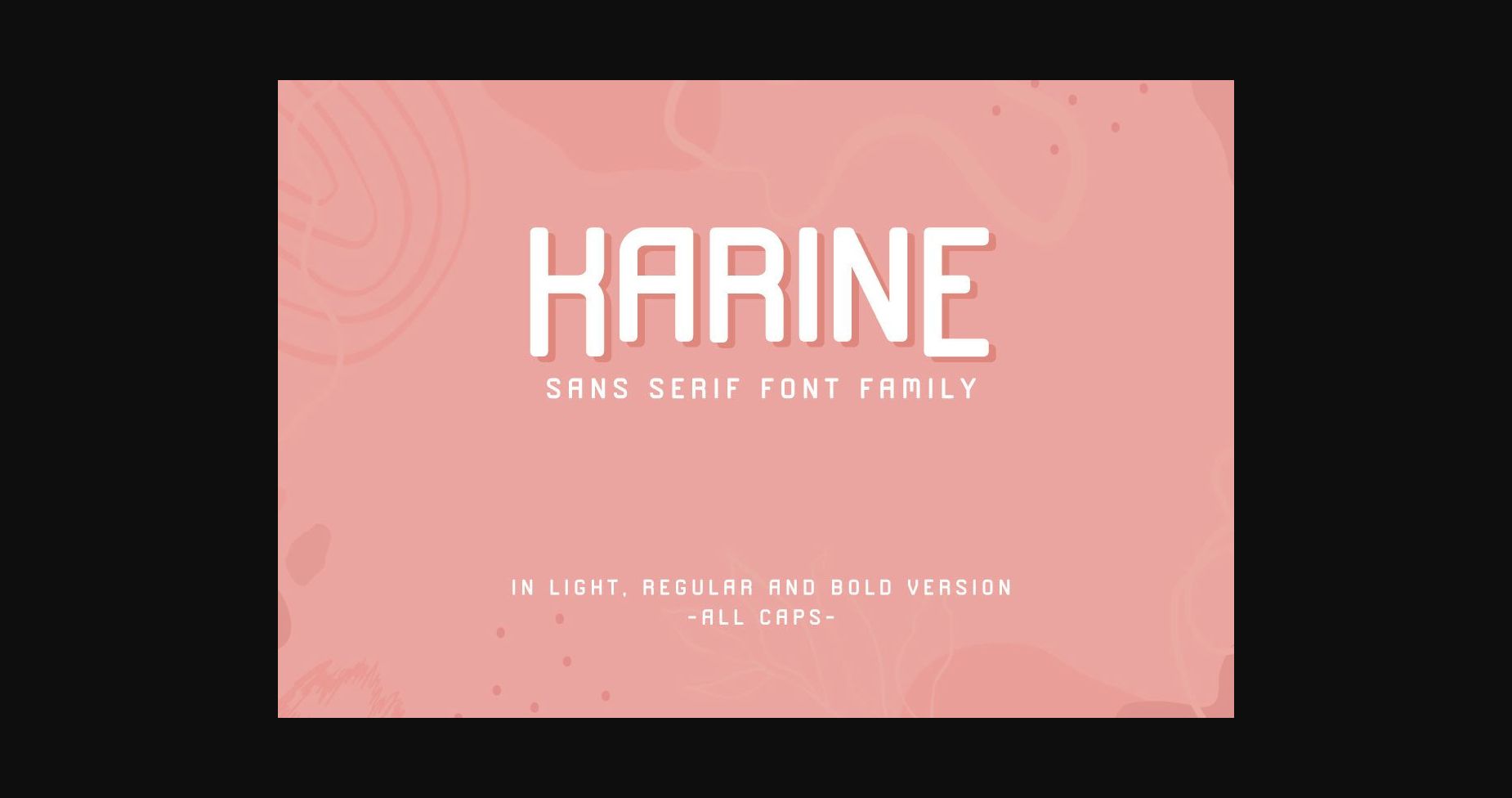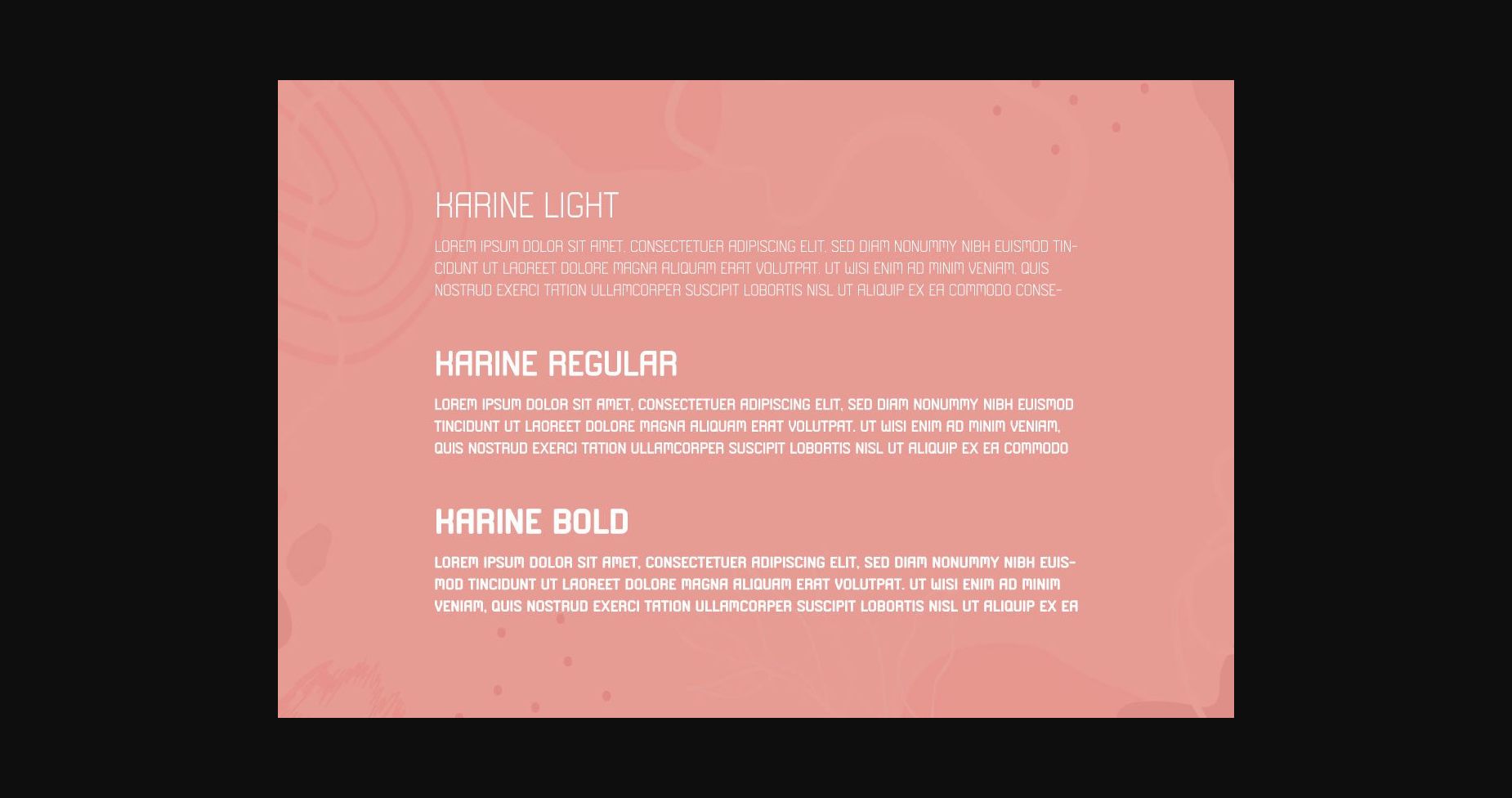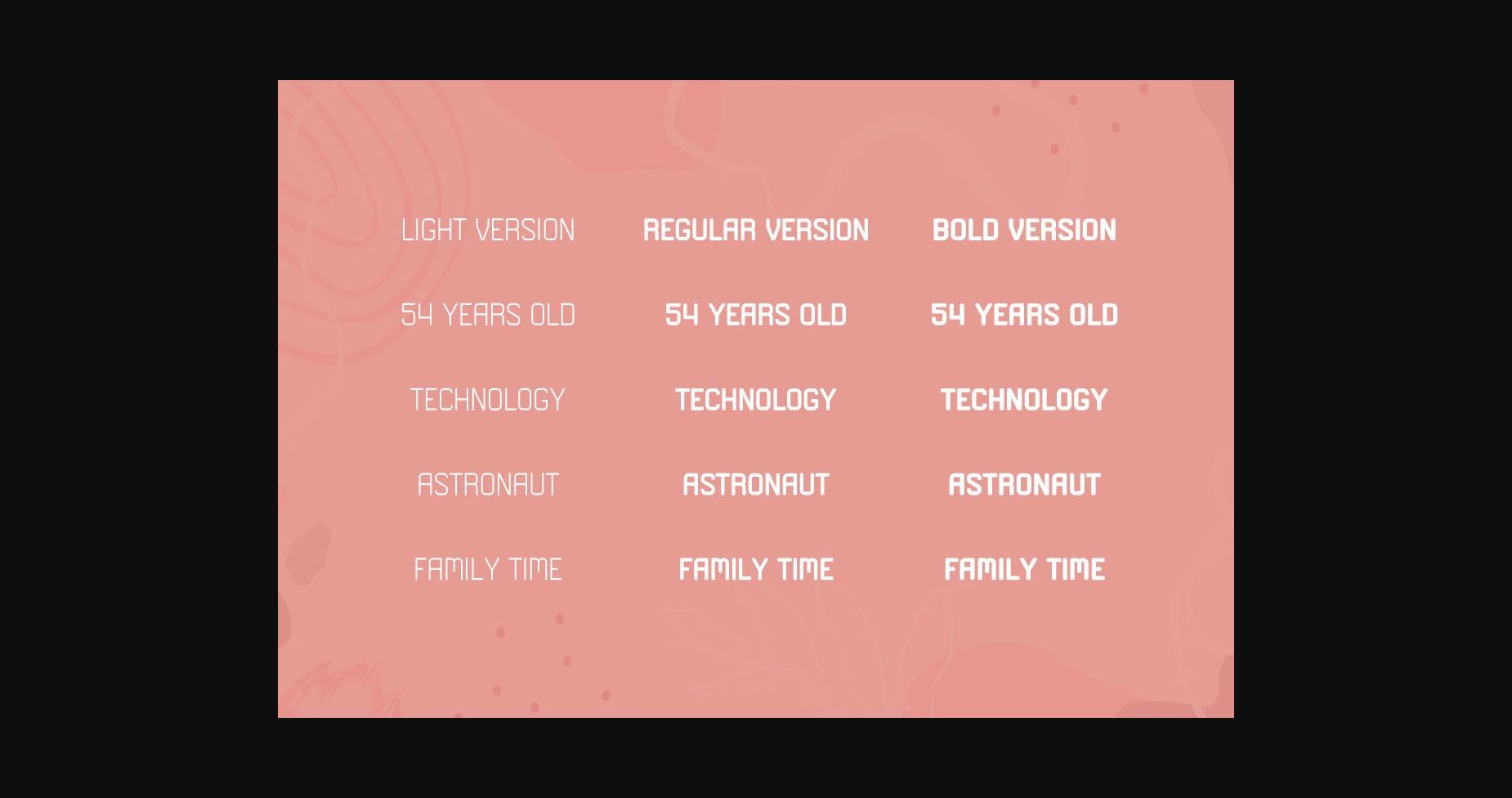
Sans Serif Fonts Karine Font 0 170 FacebookTwitterPinterestWhatsApp 1 of 5 ... Karine Font Poster 2... Karine Font Poster 3... Karine Font Poster 4... Karine Font Poster 5... About Karine Font Karine is modern and simple sans serif font. Fall in love with its incredibly distinct and timeless style and use it to create spectacular designs! DOWNLOAD NOW